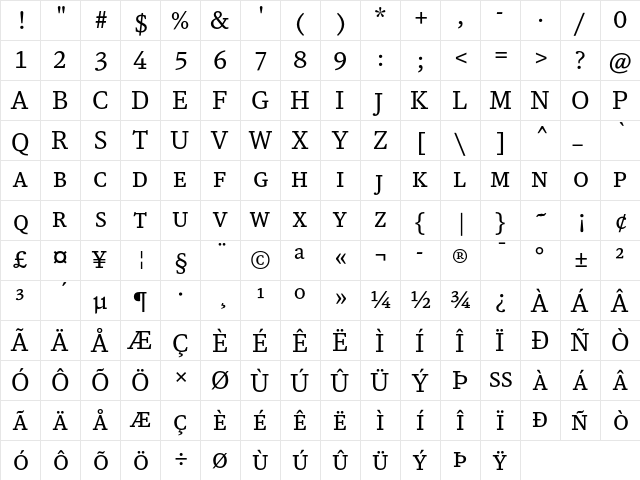
DB News TF SC Regular
Design Context for DB News TF SC Typeface
DB News TF SC takes a measured approach to typography — its balanced proportions and neutral character make it a reliable workhorse for both digital and print work.